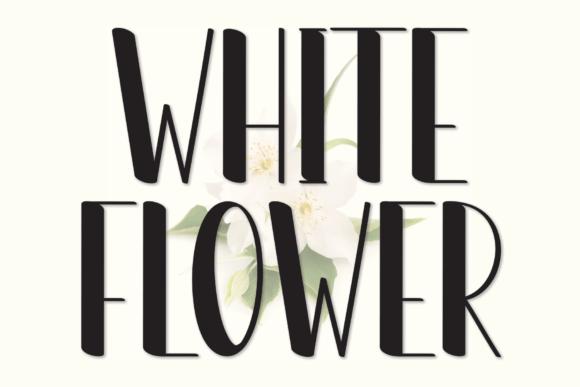
Introducing the White Flower Font - the best font for poster design! Created by Andikastudio, this modern and stylish handwritten sans serif font is perfect for all your creative projects.
Are you tired of using the same old boring fonts? Upgrade your design game with White Flower Font. With its clean and minimalistic look, it's sure to catch the eye of anyone who comes across it.
Not only is White Flower Font aesthetically pleasing, but it's also incredibly versatile. Whether you're creating a poster, logo, or social media graphic, this font is sure to elevate your design to the next level.
One of the best things about White Flower Font is its ability to convey emotion. It has a unique personality that can capture the essence of your brand or message. Plus, its handwritten feel adds a personal touch that your audience will appreciate.